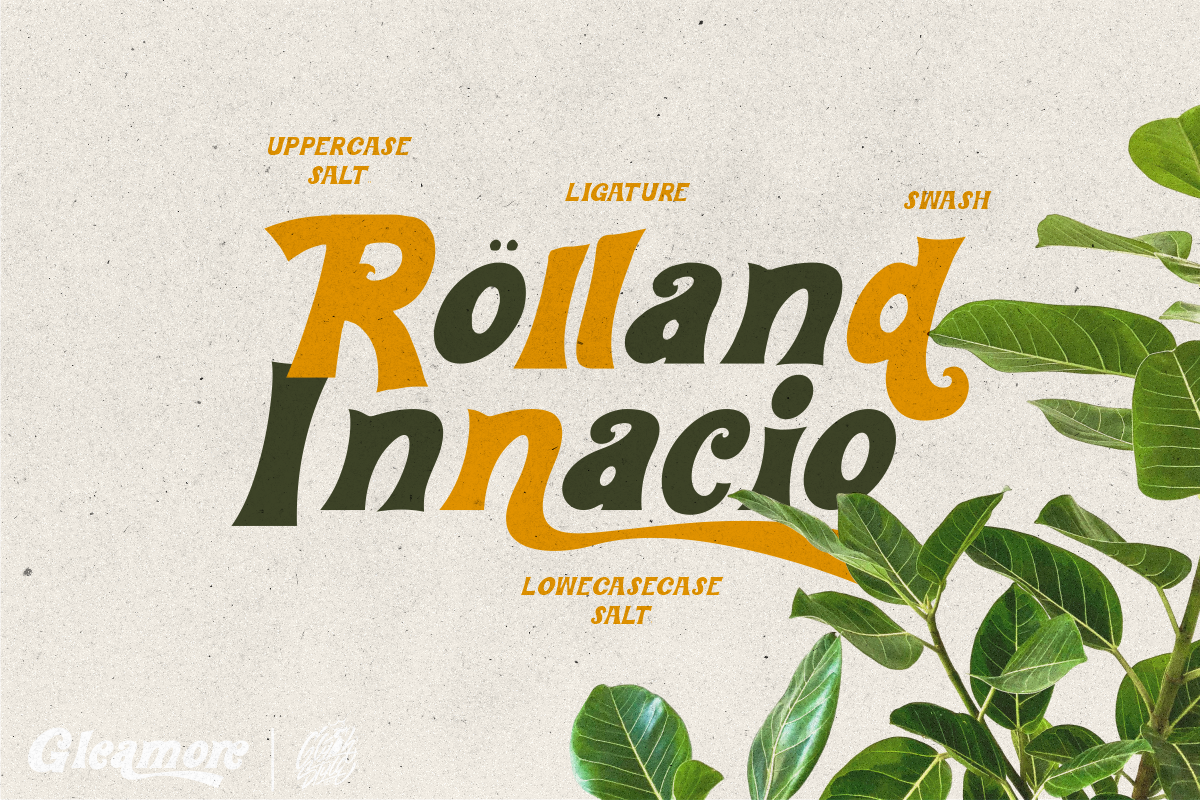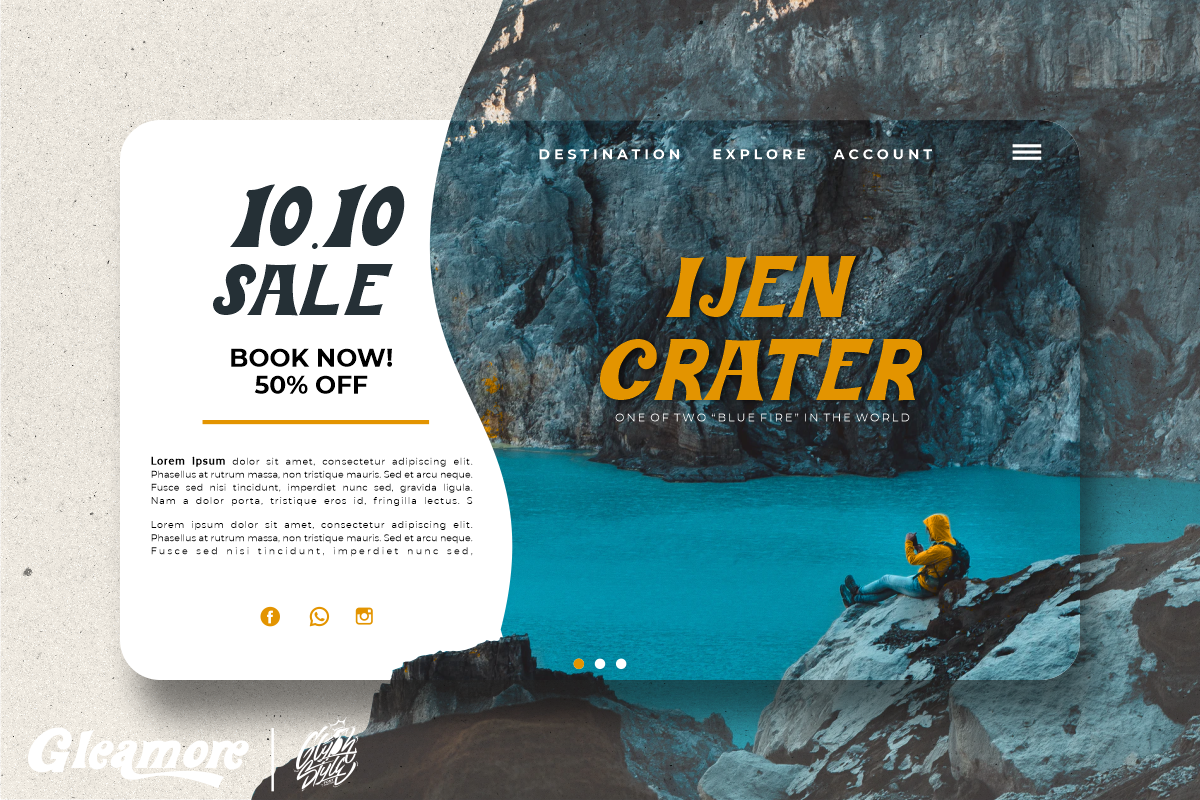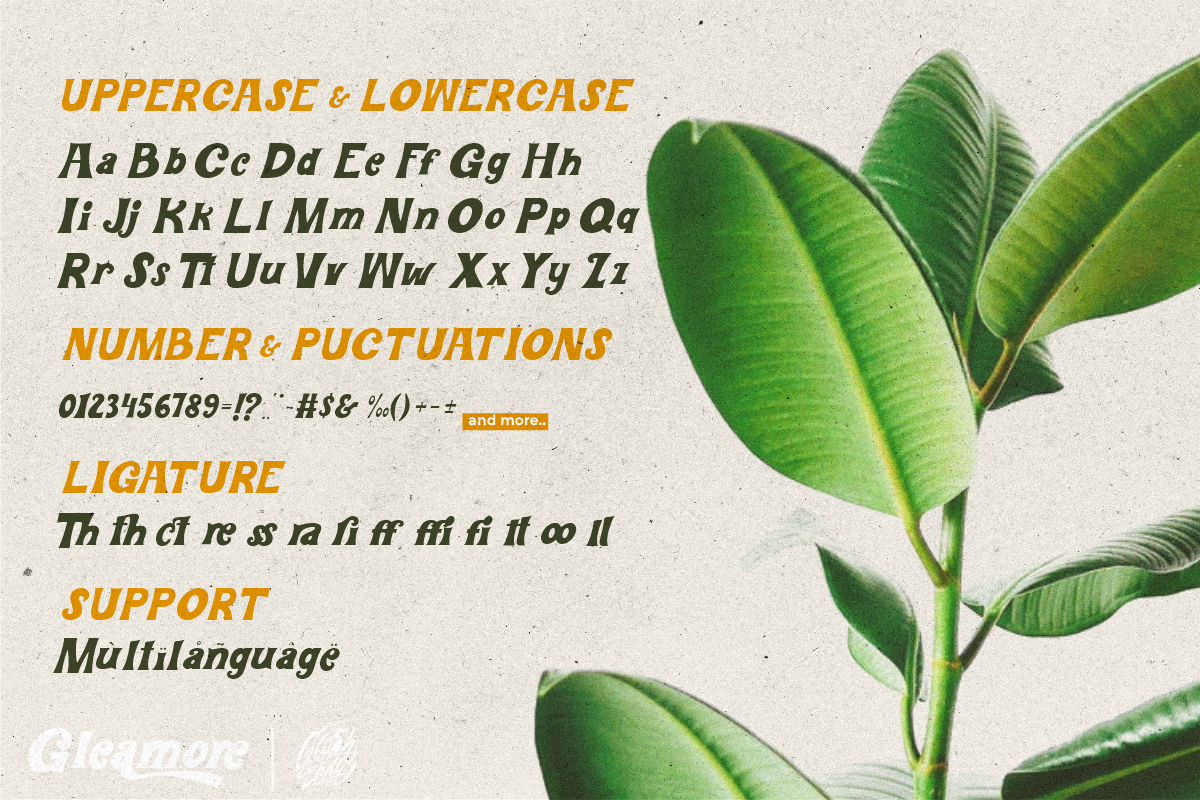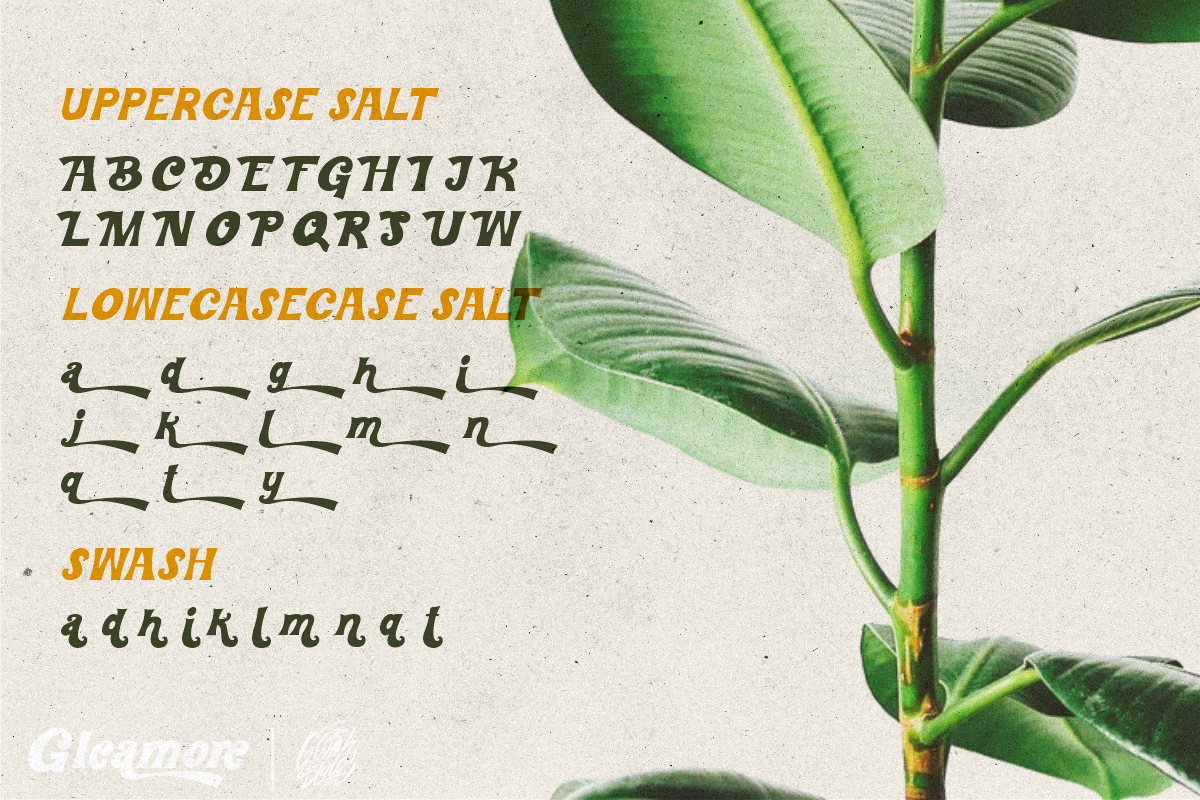
Gleamore Free Font
Gleamore Free Font, the epitome of chic and bold in the world of display fonts, empowers you to convey any message with confidence, authenticity, and an undeniable charm. This free typeface was designed by a talentedΒ GlyphStyle. If you like it don’t forget to check out the full version.